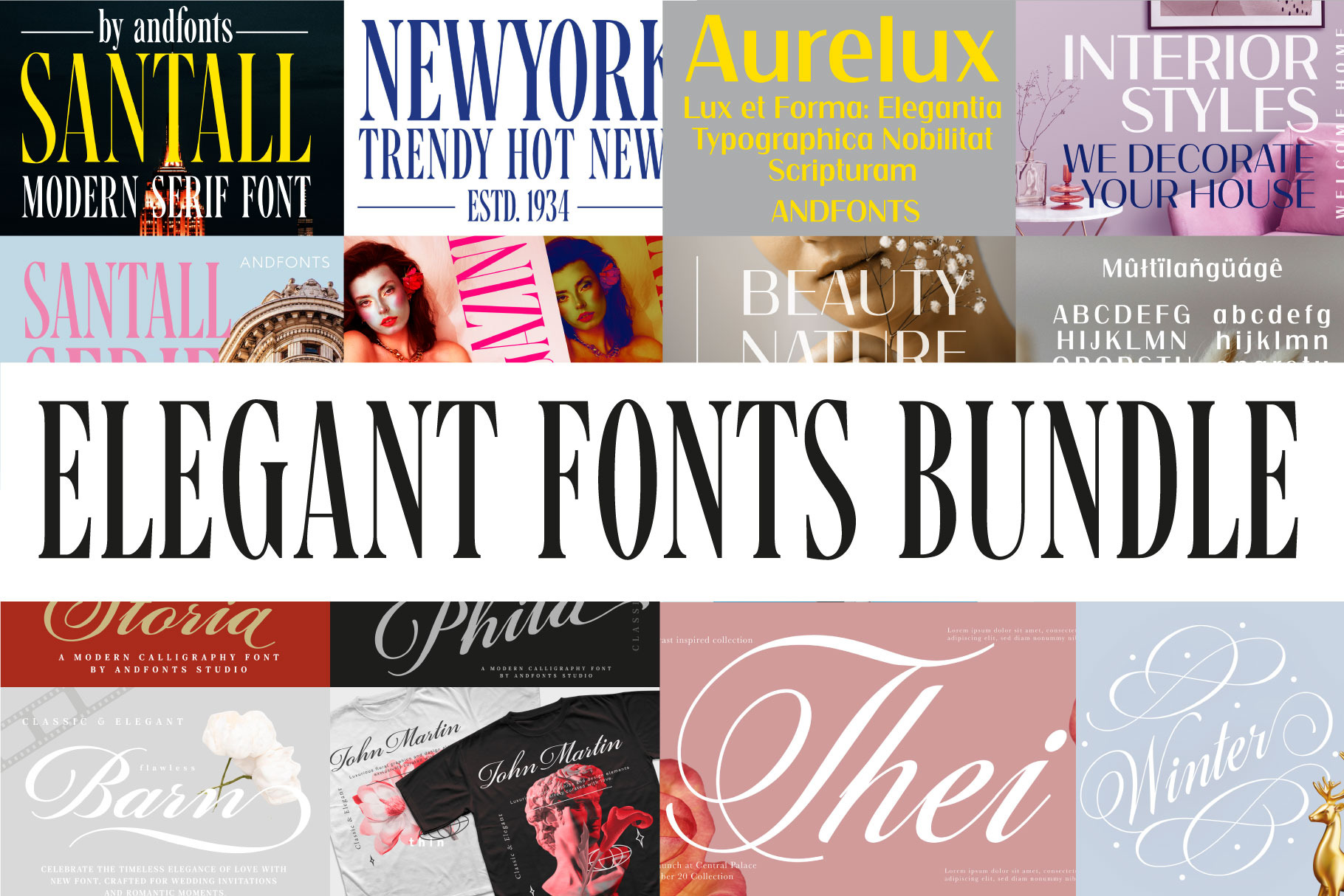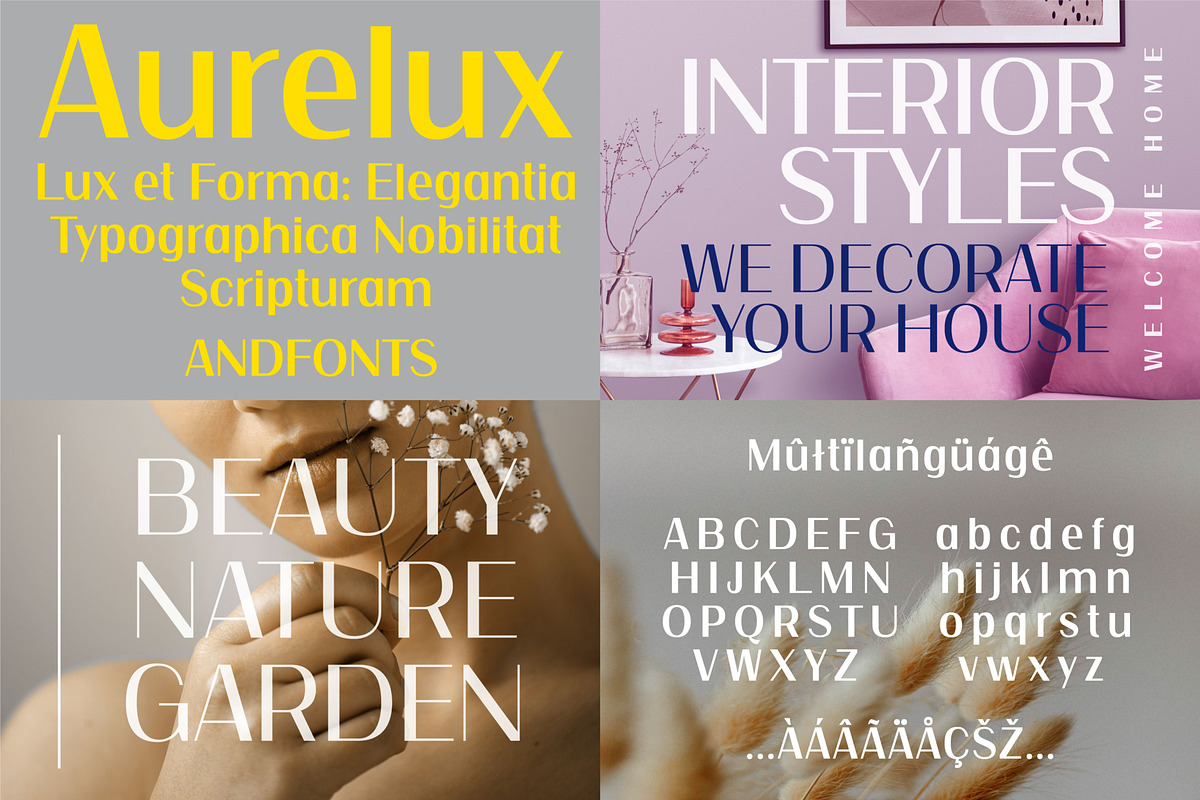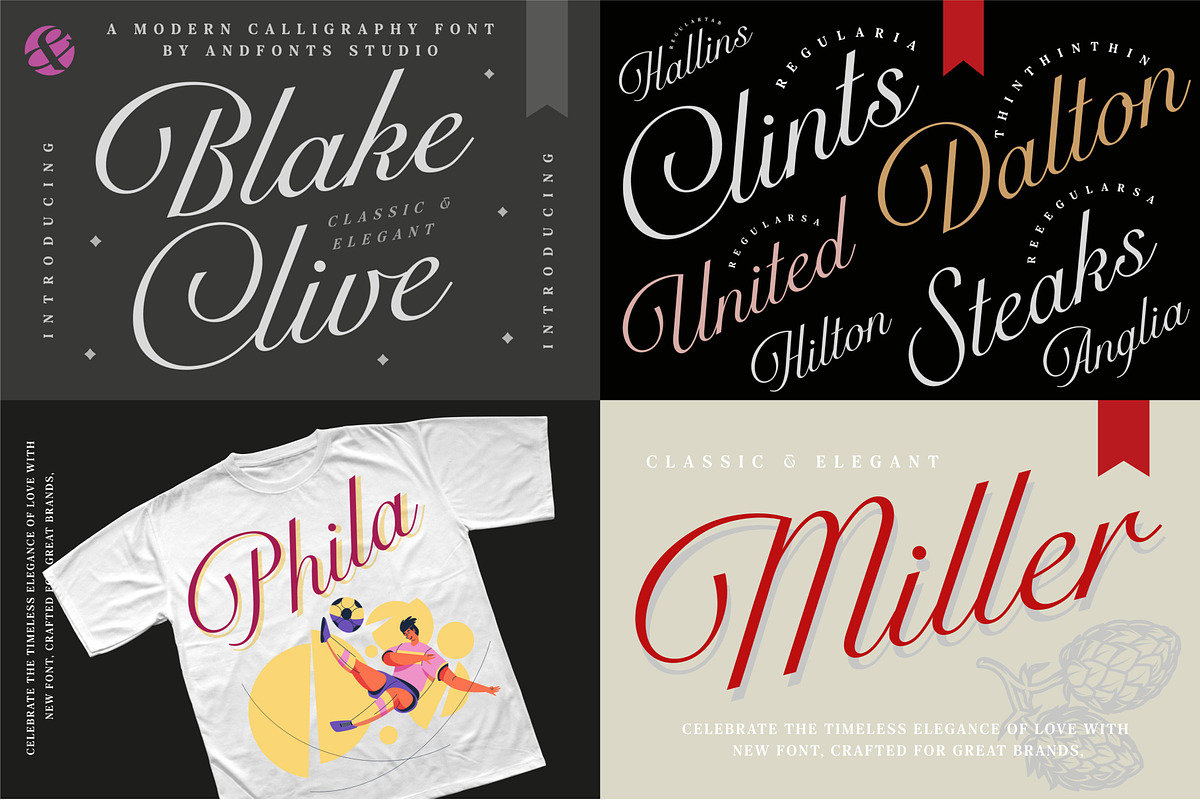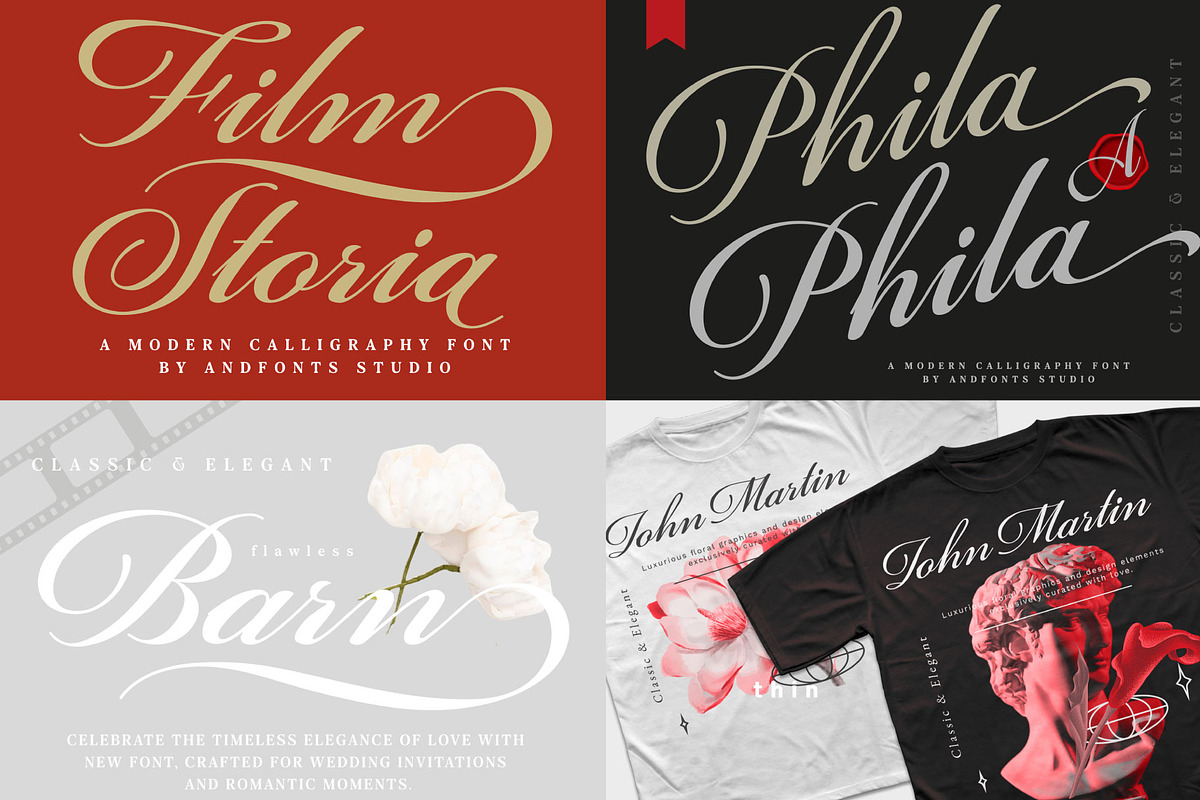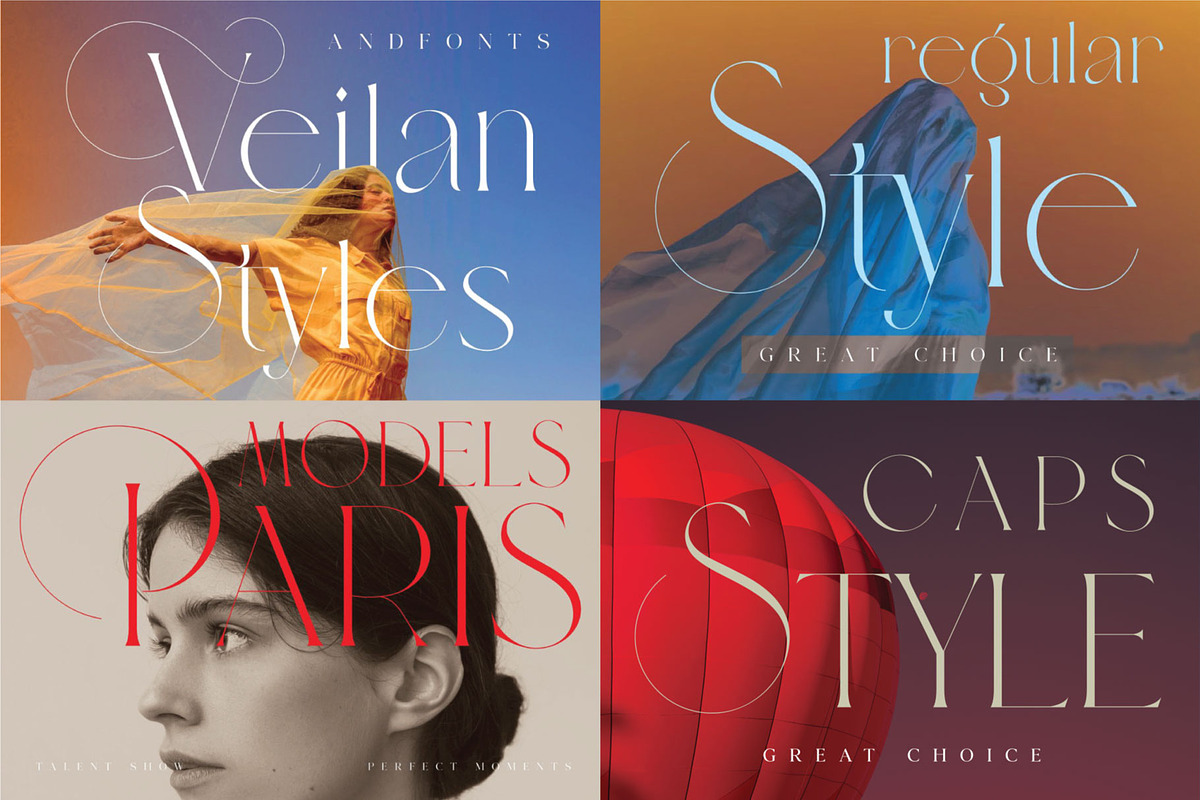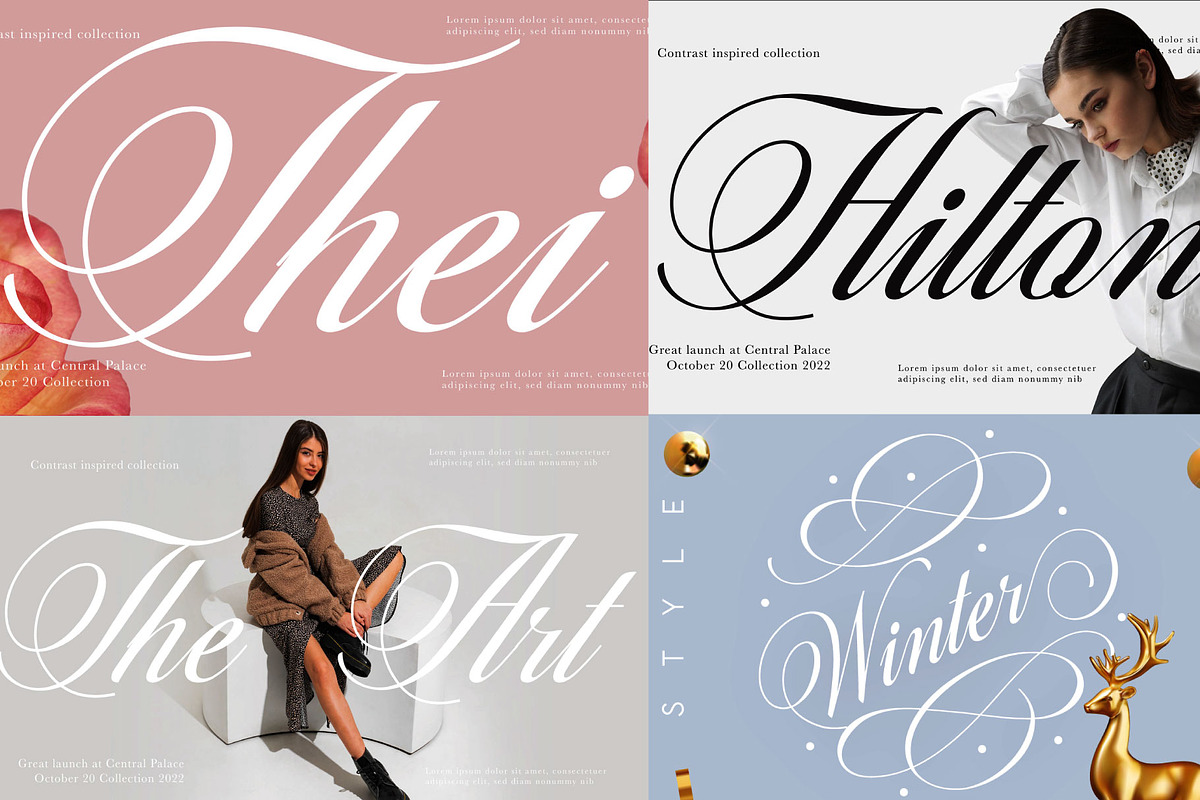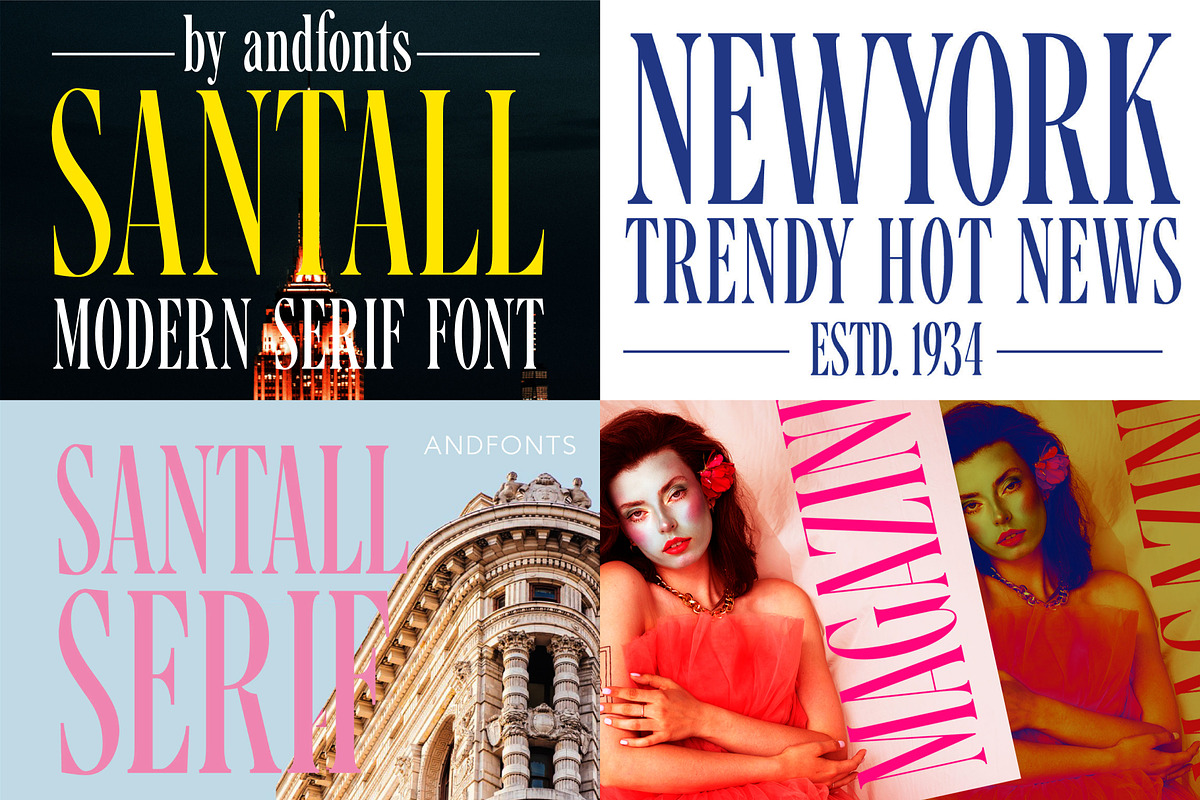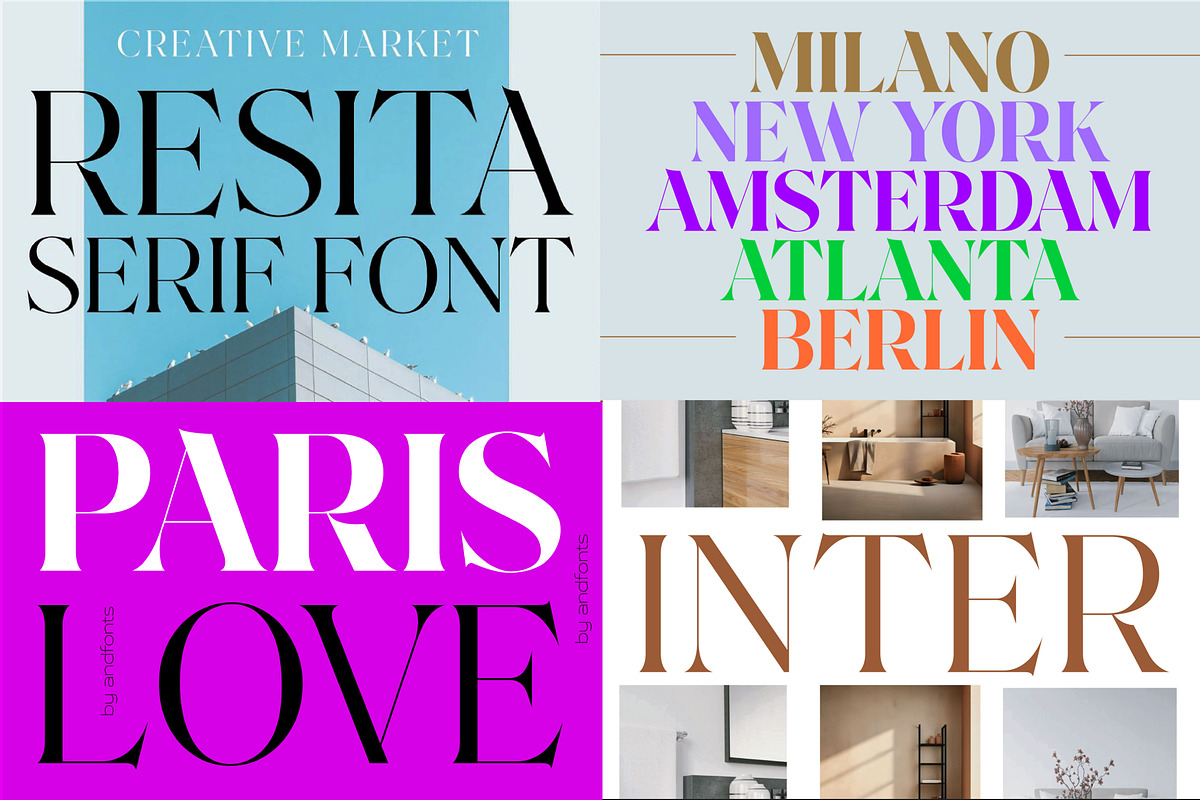
Elegant Fonts Bundle
Elegant Fonts Bundle. 10 Fonts. Best Modern Calligraphy and Display Fonts helps You to finish Your design ideas. You can Buy Commercial Licenses of these fonts for $19 and use them in your projects.